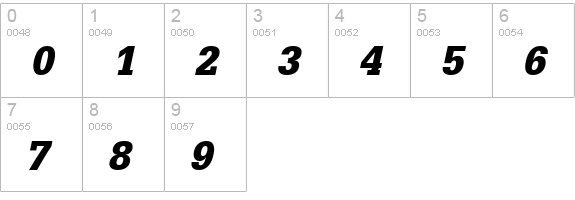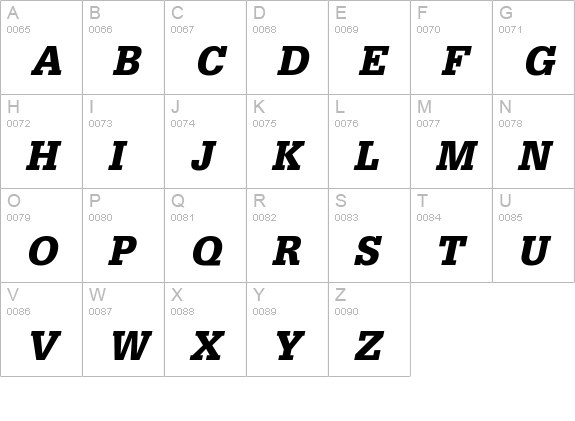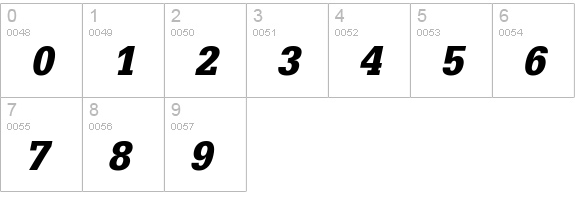
Installation Black SSi Black Italic is a maximum-weight, dramatic, italic variant in the Installation typeface family \xE2\x80\x94 well suited to maximum-impact headlines, posters, and packaging.
Installation Black SSi Black Italic font is a bold and stylish typeface that adds a touch of sophistication to any design project. With its sleek and modern look, this font is perfect for creating eye-catching headlines, logos, posters, and more. The italicized version of Installation Black SSi Black font adds an extra level of elegance and flair, making it an excellent choice for projects that require a touch of drama. Whether you're designing a magazine layout, a website, or a branding project, this font is sure to make a statement. One of the best things about Installation Black SSi Black Italic font is that it is freely available to download at FontsMarket.com. This means that you can start using this font in your designs right away, without having to worry about any licensing restrictions or fees. It's a fantastic opportunity to elevate your design work without any additional cost. So why not give Installation Black SSi Black Italic font a try? Download it for free at FontsMarket.com and see how it can transform your designs. With its bold and stylish appearance, this font is sure to enhance any project and leave a lasting impression on your audience.